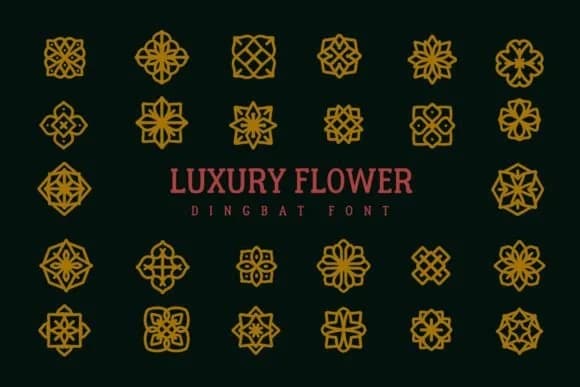
Picture yourself laying out a wedding invitation suite, searching for just the right decorative flourish to frame the names and date. Luxury Flower, designed by Eystore, delivers exactly that with its rich collection of ornamental dingbat elements that feel both refined and instantly usable. This font transforms even the simplest layouts with floral accents and design embellishments that work beautifully across Christmas greeting card designs, DIY gift tag sets, and scrapbooking projects where small touches make a real difference.
Versatility within a single character set is where this font really shines. Dingbat fonts like this one work best when you need decorative flourishes that feel intentional rather than random. Use individual characters to punctuate borders, create corner ornaments, or build custom frames around your text. These ornaments feel cohesive enough to pull a whole layout together for boutique invitation sets, handmade stationery collections, and even holiday packaging projects. Each character works as a standalone element, so you're never locked into one arrangement.
Luxury Flower Font is a versatile dingbats font that works for both headings and body text. Pair it with a contrasting sans-serif or serif font to add visual interest and a clear distinction between titles and body copy.
Luxury Flower Font
by Eystore